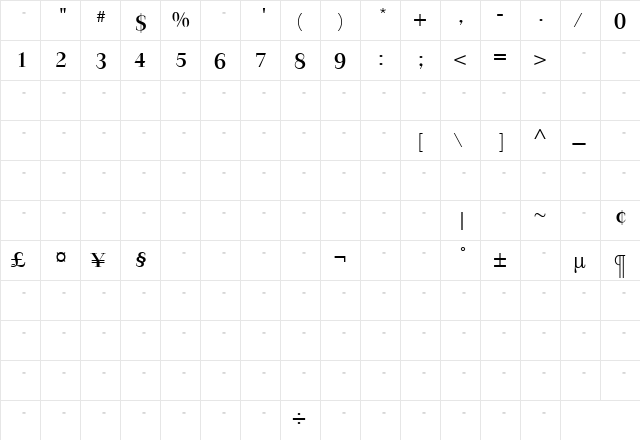
JardineBoldTab Regular
Design Context for JardineBoldTab Typeface
JardineBoldTab offers clean, dependable letterforms without strong stylistic allegiance, making it a practical choice for designers who need flexibility. The heavy weight commands attention and anchors typographic hierarchies.